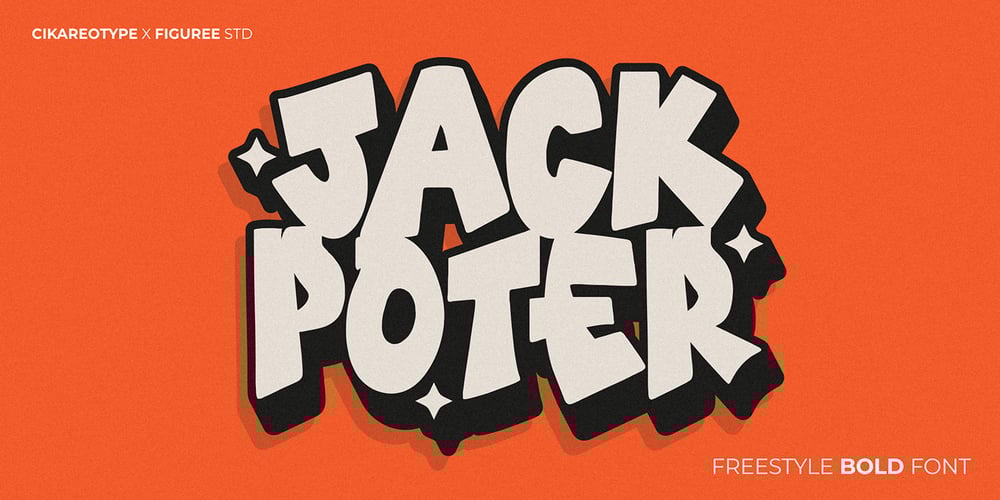
Jackpoter
Jackpoter font
Jackpoter Font Family was designed by Sipanji and published by Sipanji21. Jackpoter contains 1 styles and family package options. Jack Poter is a thick display font with awesome characters. This bold and eye-catching font is perfect for making a strong impression in any design project. Ideal for posters, headlines, logos, and branding, Jack Poter brings a powerful and dynamic presence to your work, ensuring it stands out with its striking and robust characters.–Uppercase